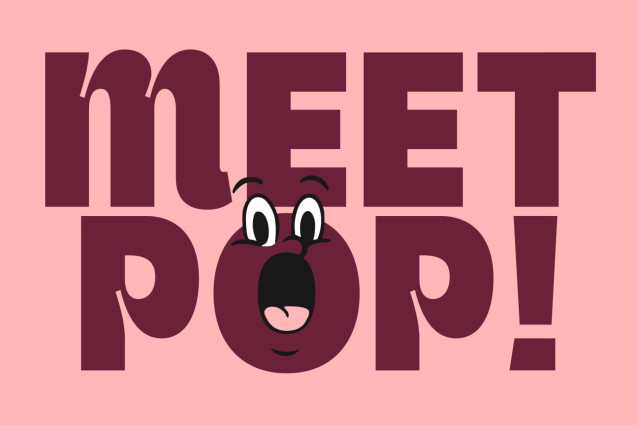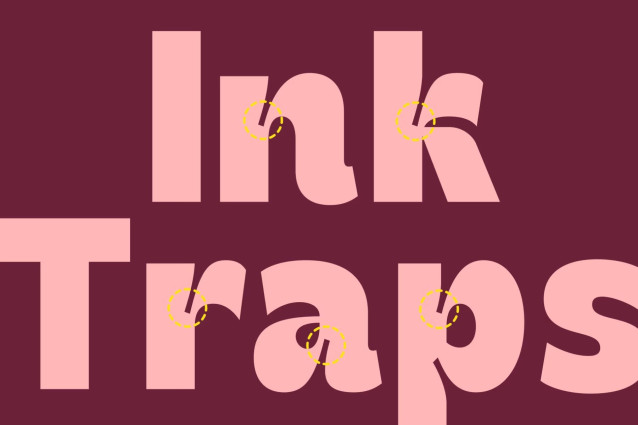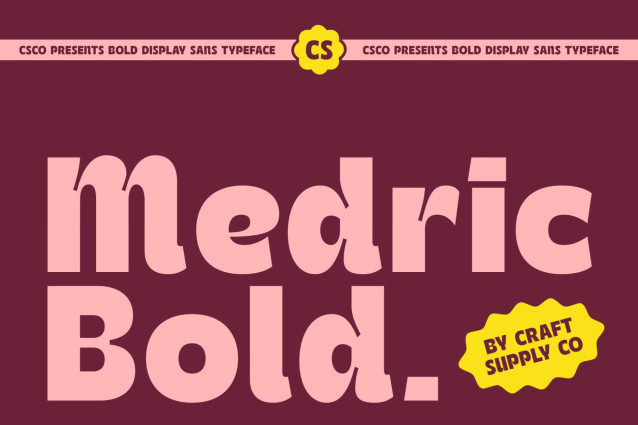
CS Medric – Inktrap Font
CS Medric – Bold Display Sans Serif Font: Where Strong Impact Meets Playful Inktrap Character
Powerful Forms with Friendly Energy
This is a bold display sans serif font designed to make a strong visual statement while maintaining a playful and approachable personality. Its thick letterforms create a commanding presence, ensuring maximum visibility and impact across a wide range of display applications. Despite its bold construction, the font incorporates soft curves and friendly proportions that give it a warm, energetic, and welcoming feel.
Playful Inktrap Style with Modern Appeal
This font transforms technical typographic features into expressive design elements. These carefully crafted cuts and refinements add visual interest, depth, and character to each letterform, creating a lively and contemporary appearance. The playful inktrap styling gives the font a unique personality while preserving clarity and readability.
Bold Expression with Creative Versatility
This font delivers a typographic identity that feels confident, dynamic, and highly memorable. Its balance of boldness and friendliness makes it suitable for projects that seek attention without sacrificing warmth or accessibility.